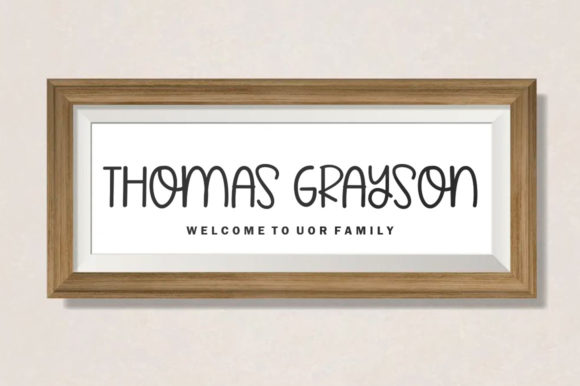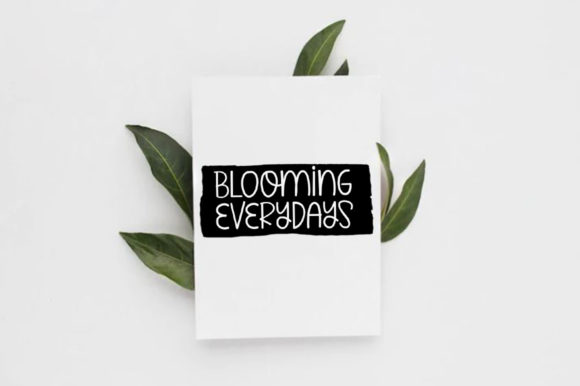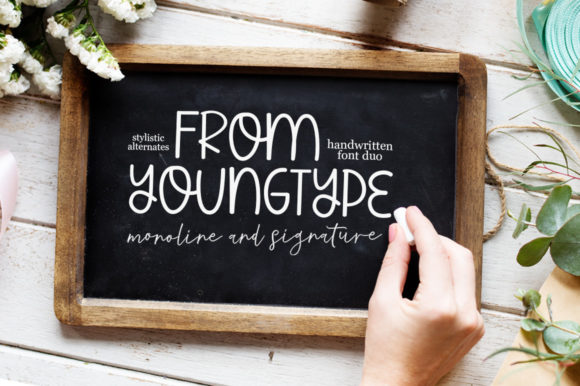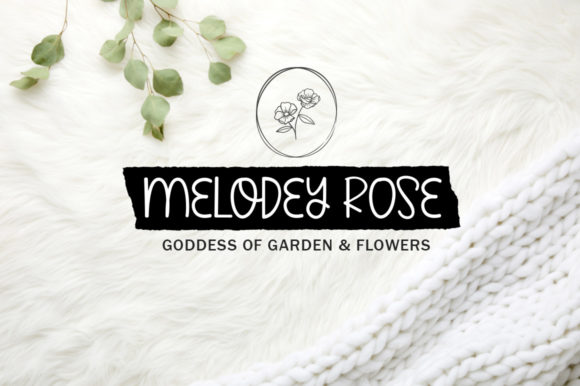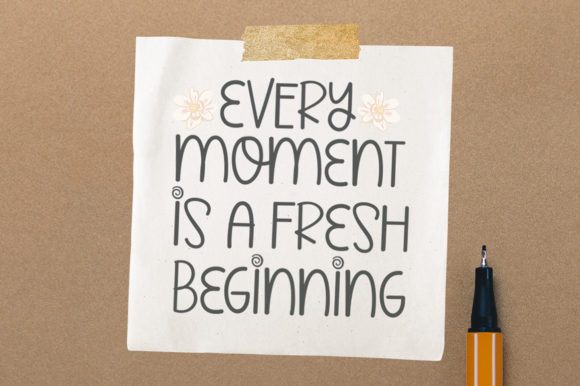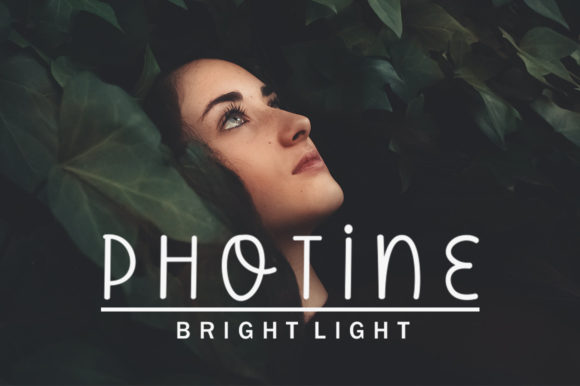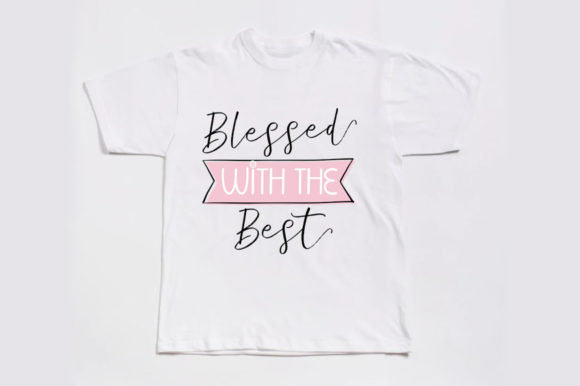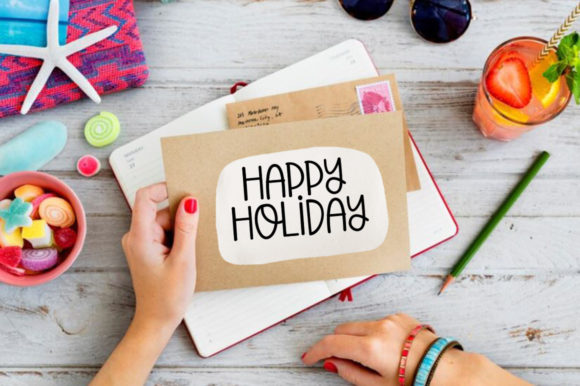
Joyful Magnolia Duo Font
About Joyful Magnolia Duo Font
Introducing “Joyful Magnolia,” a delightful handwritten font duo crafted to bring joy and elegance to your projects. This duo features two complementary fonts: a casual and playful handwritten font and a signature-style script font. Perfect for watercolor designs or bold hand styles such as blog headers, posters, wedding elements, t-shirts, apparel, book covers, business cards, greeting cards, branding, merchandise, invitations, handmade quotes, and more.
With its casual and playful handwritten font, Joyful Magnolia adds a touch of whimsy and charm to any design. Its relaxed style is perfect for capturing a laid-back and friendly vibe.
Meanwhile, the signature-style script font exudes elegance and sophistication, lending a touch of class to your projects. Its flowing strokes and graceful curves create a sense of refinement and beauty.
Experience the joy and versatility of Joyful Magnolia and watch as it transforms your designs into captivating works of art. Whether you’re a professional designer or a passionate enthusiast, this font duo invites you to explore new possibilities and express yourself with confidence and style.
Unlock the full potential of your projects with Joyful Magnolia and let its handwritten font duo elevate your designs to new heights. With its playful charm, elegance, and PUA encoding for easy access to glyphs and swashes, Joyful Magnolia is sure to become a beloved addition to your design toolkit, inspiring creativity and joy with every use.